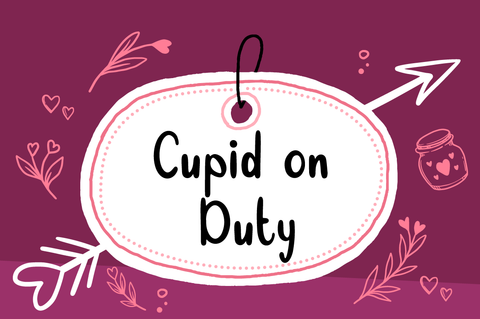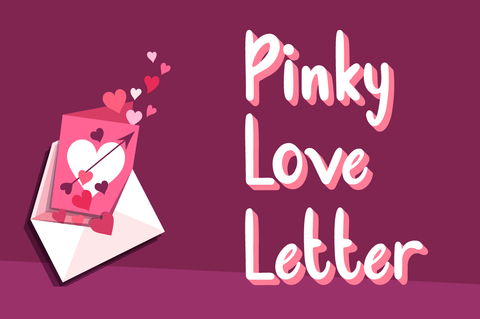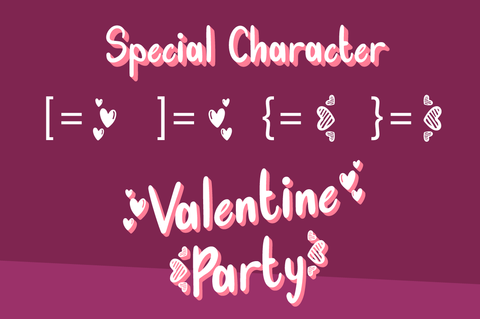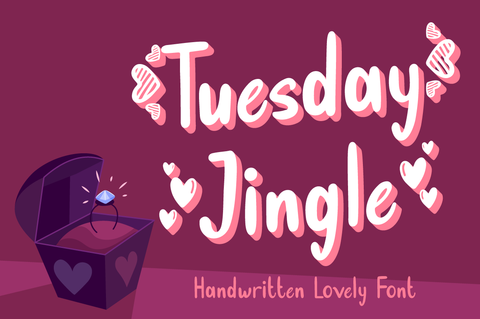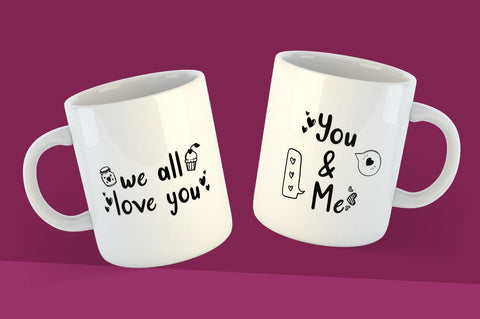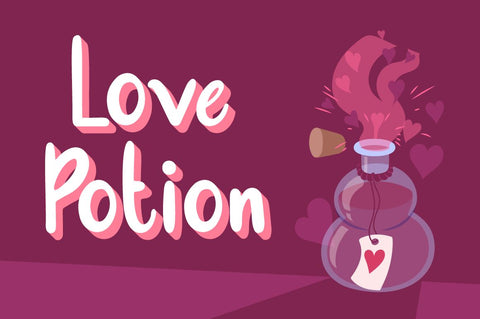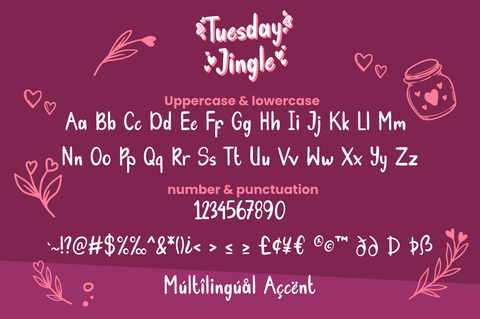
Tuesday Jingle - Lovely Font
Tuesday Jingle is an exquisite font for Valentine theme design, with dingbats heart on character "{}[]" Fall in love with it and bring your projects to the highest levels!
- Heart dingbats on character "{}[]"